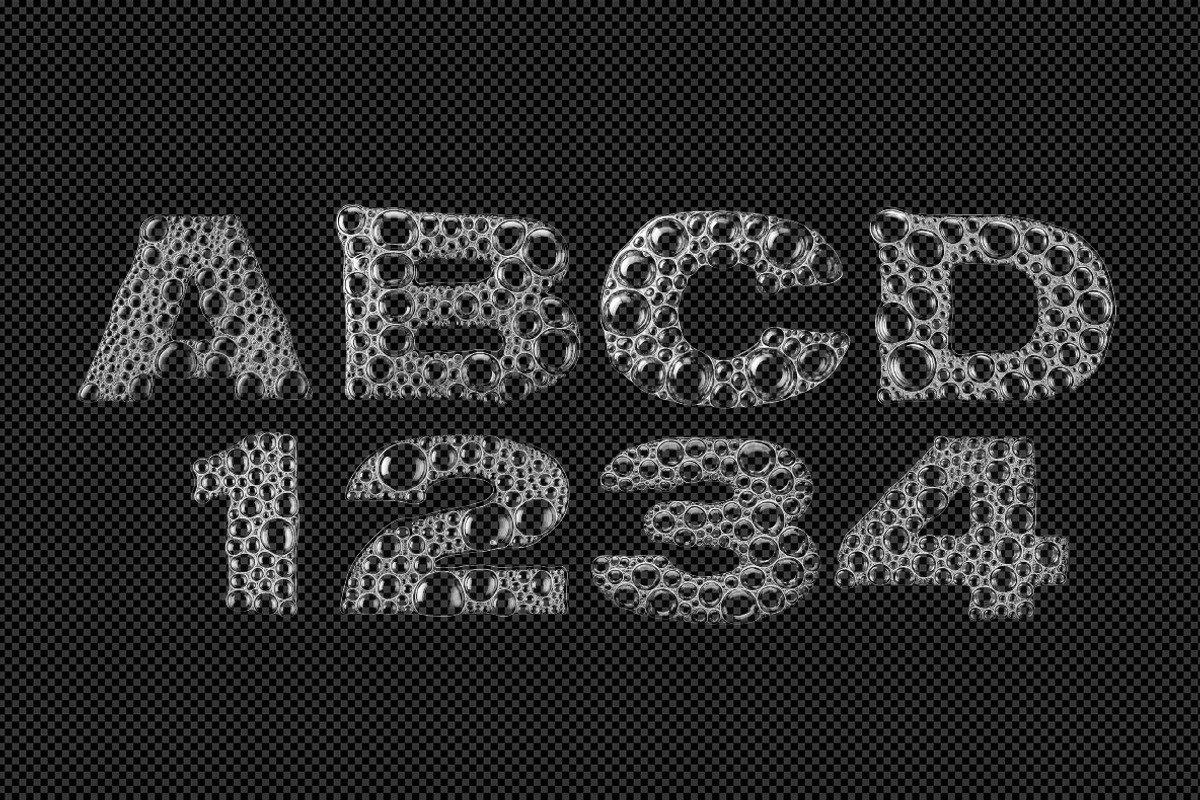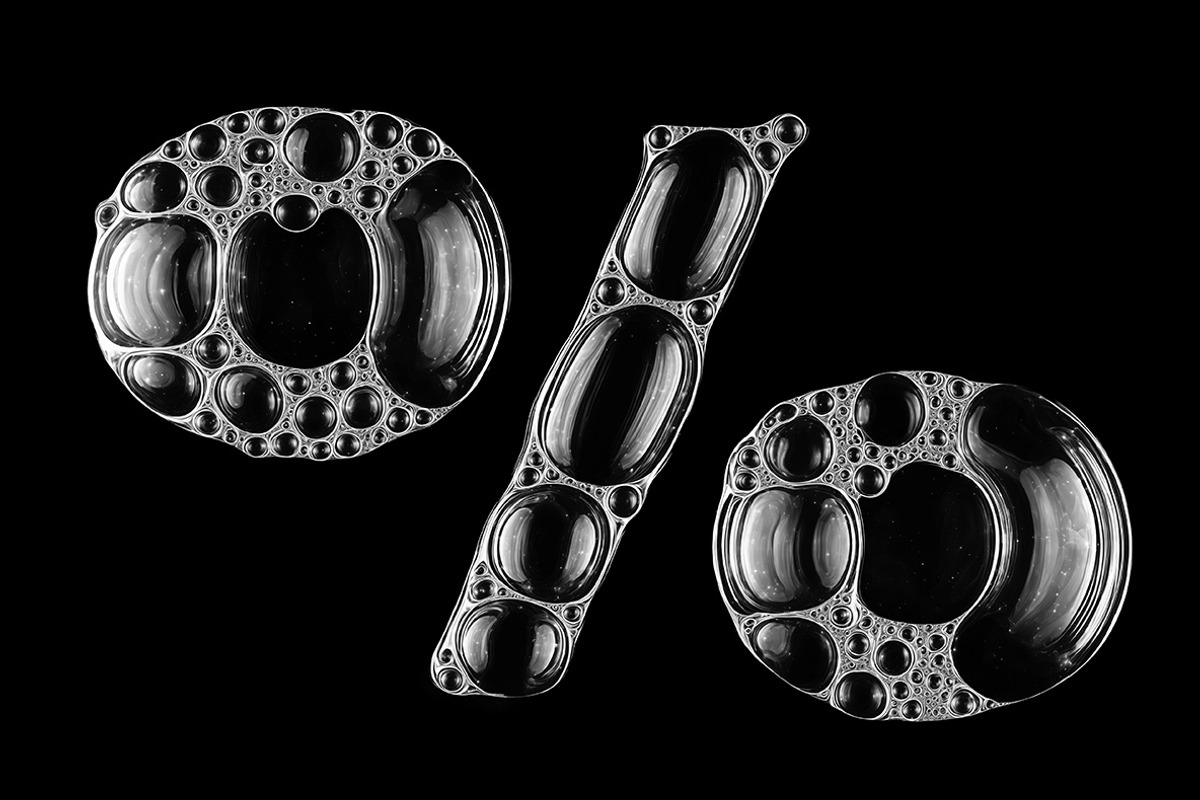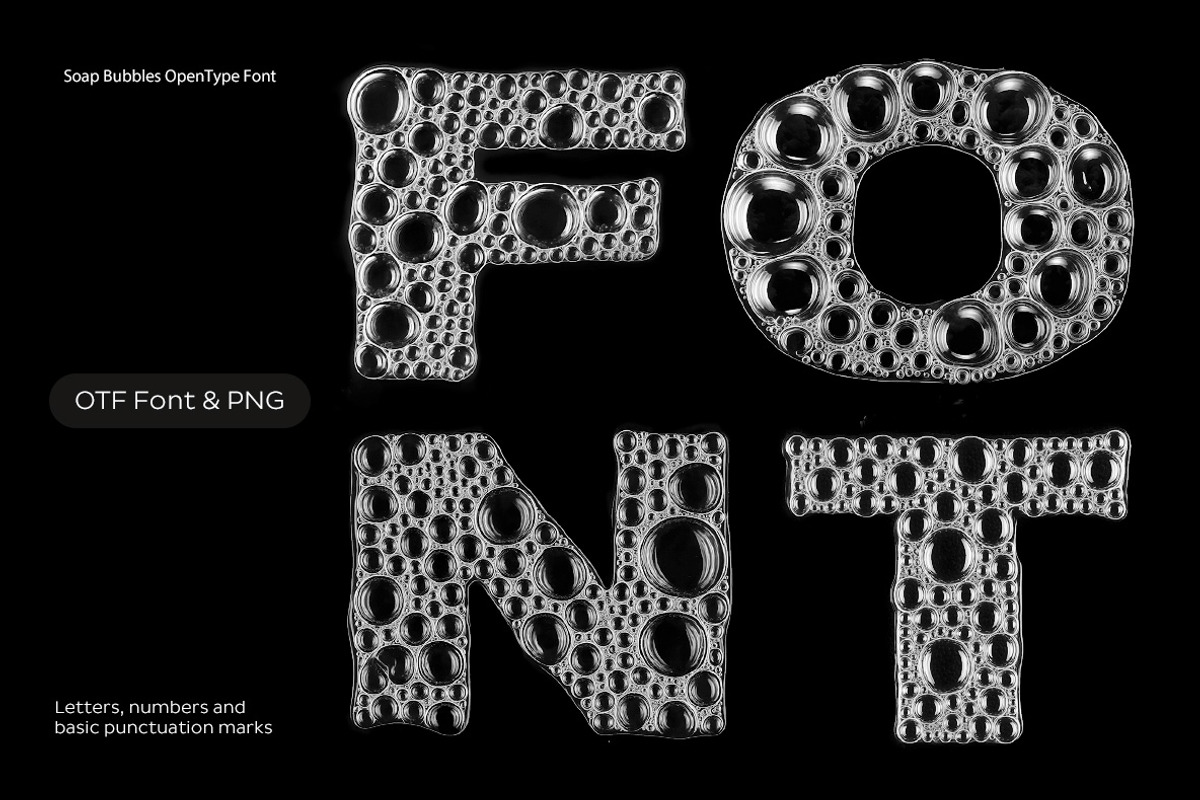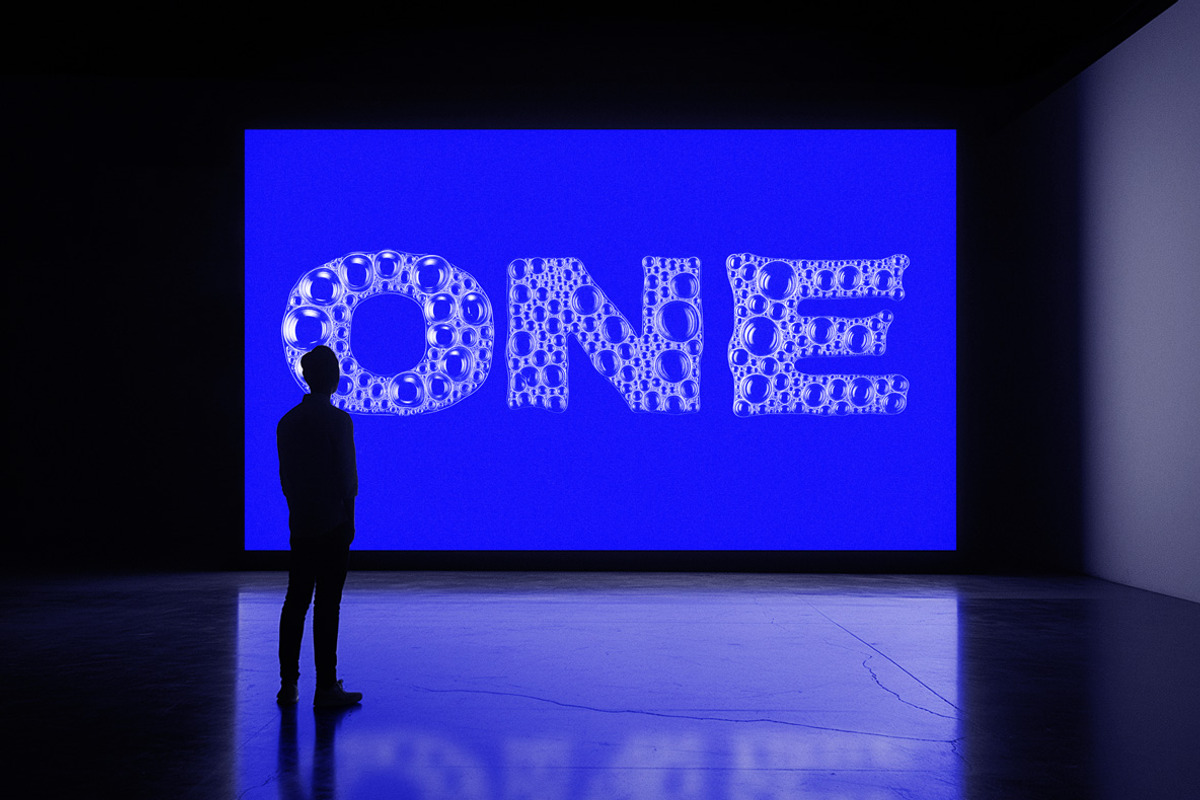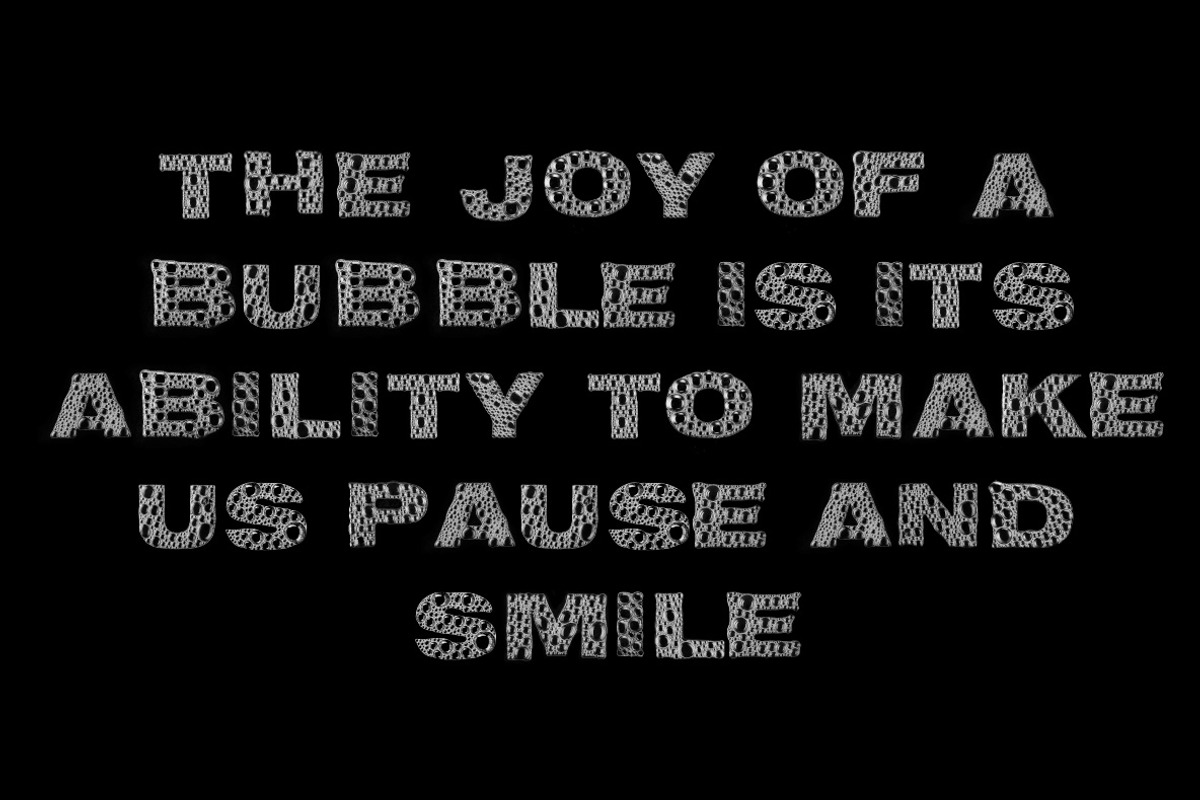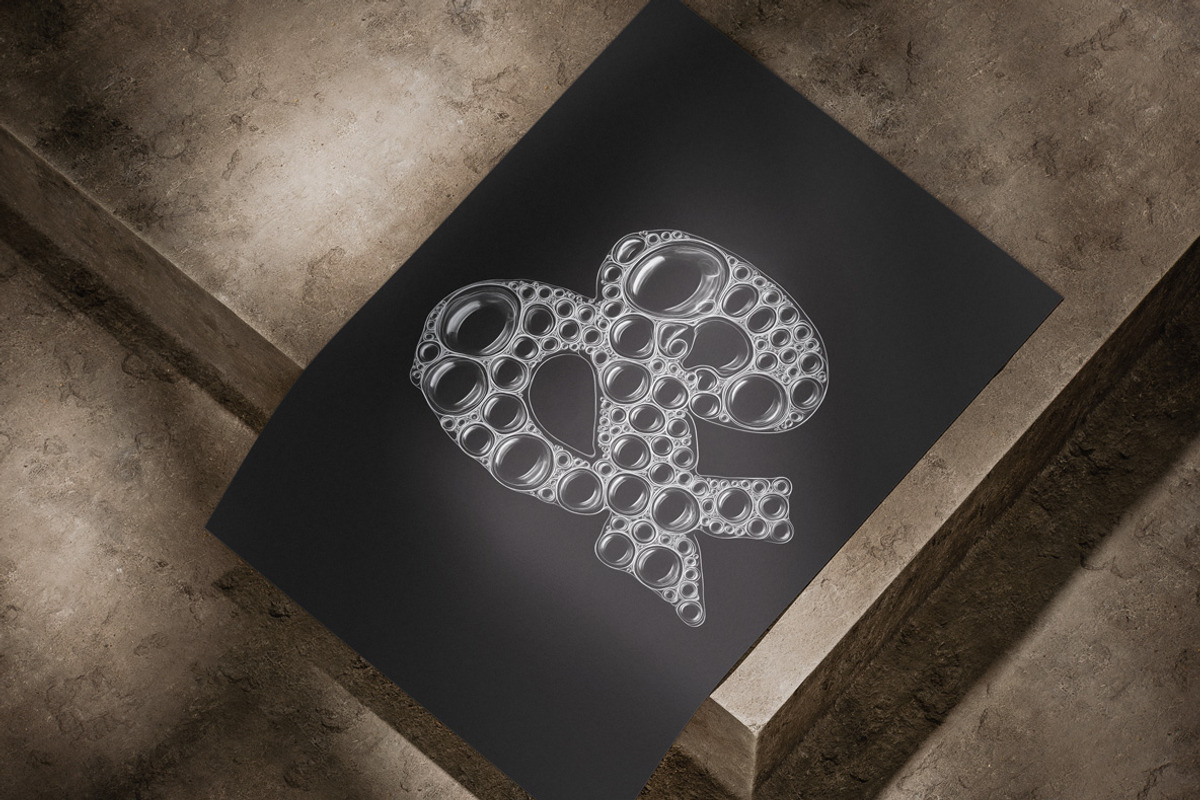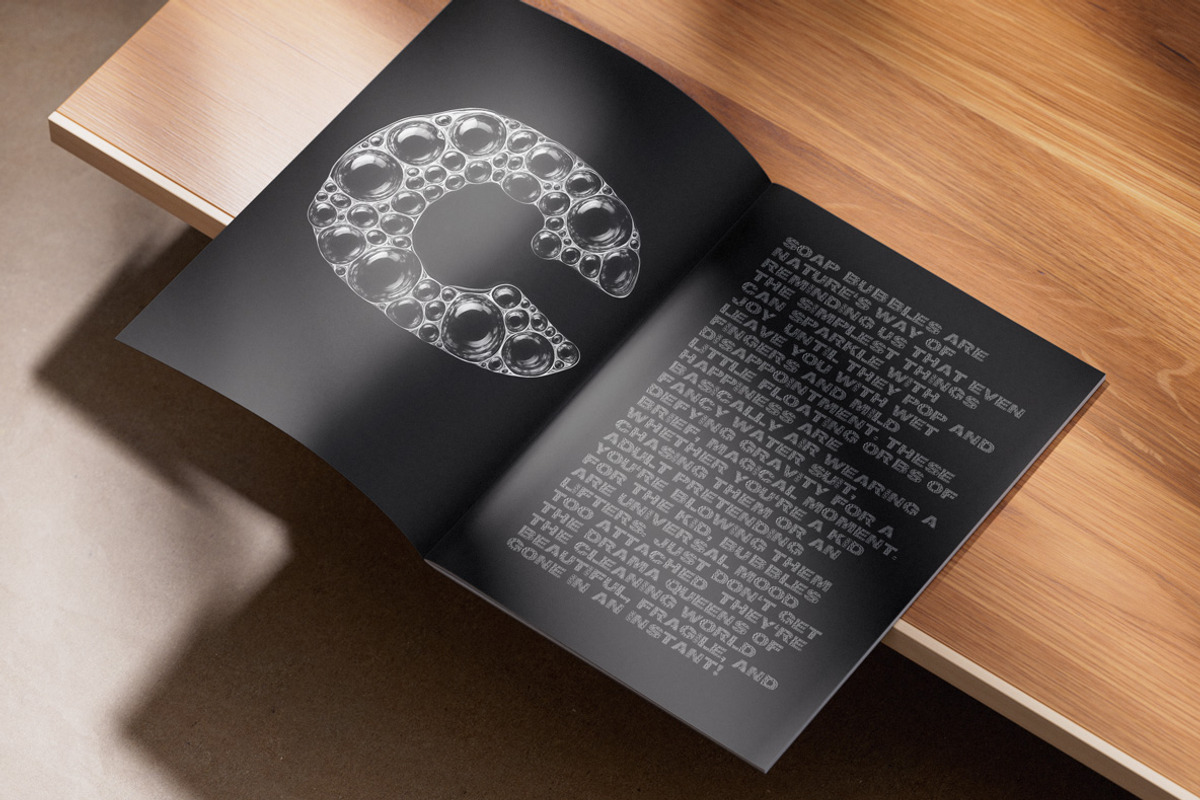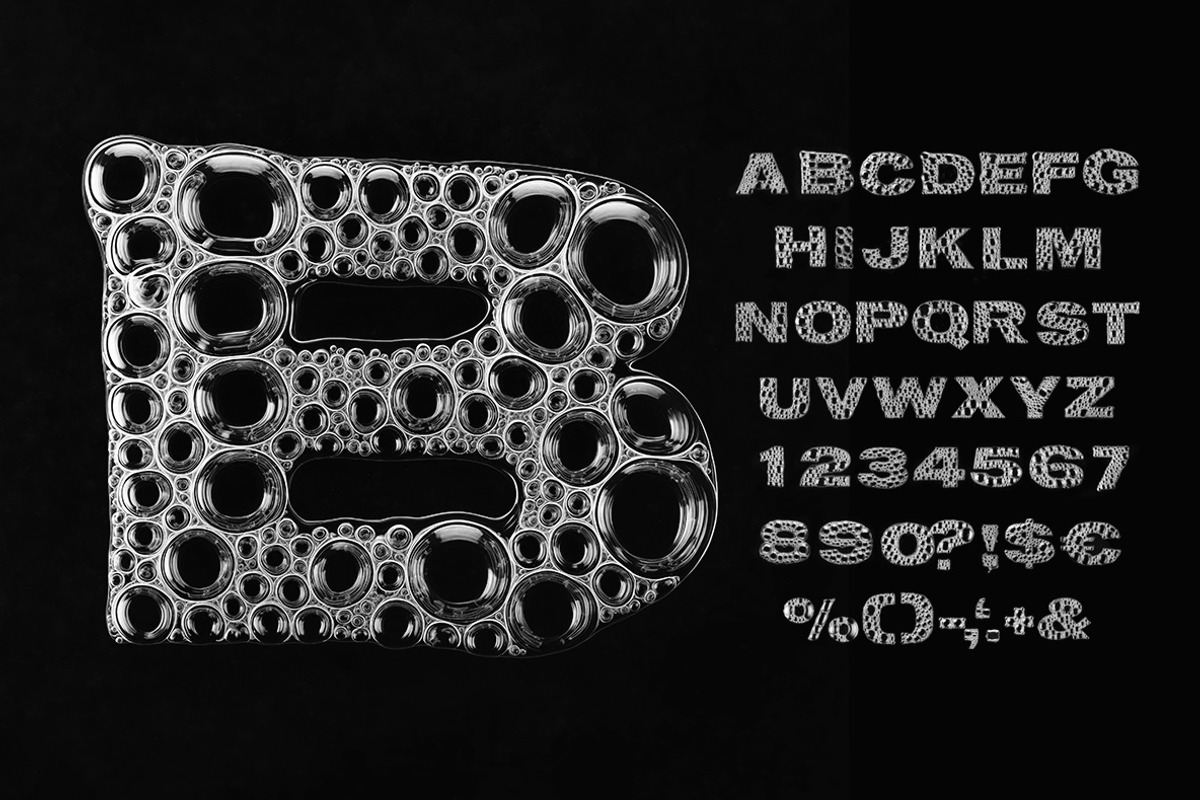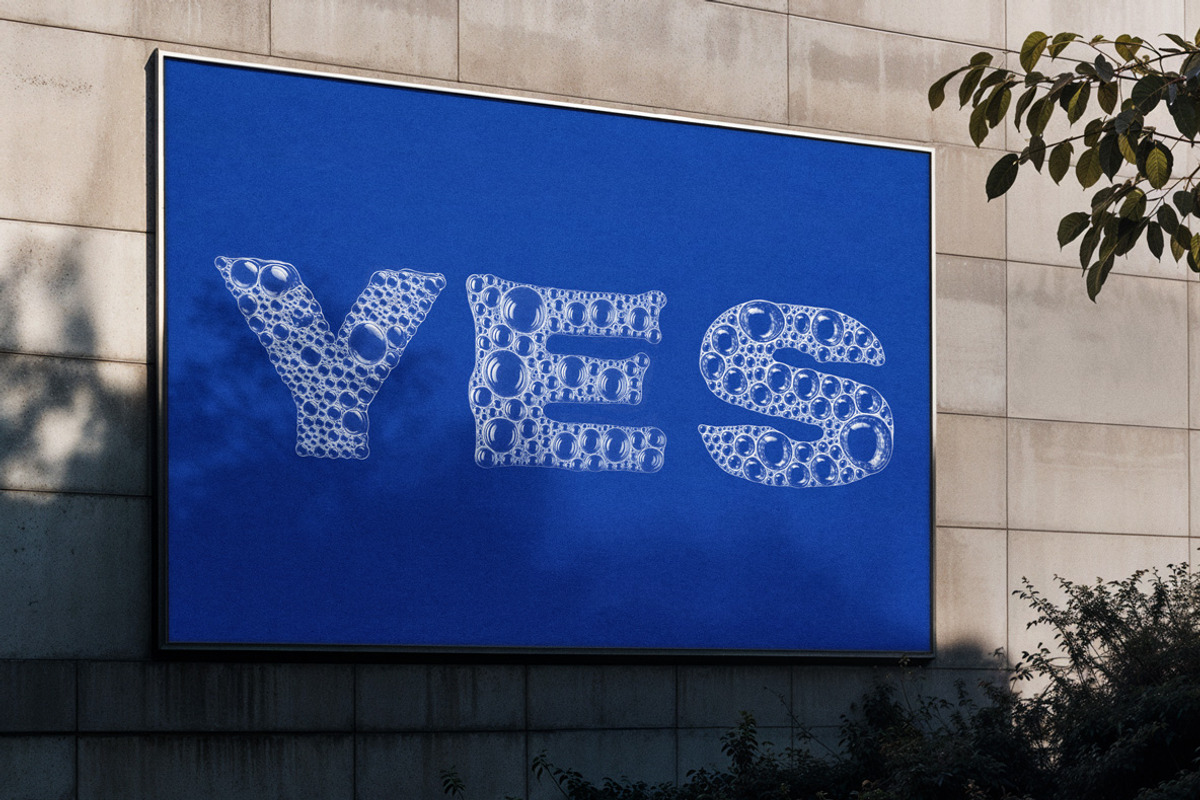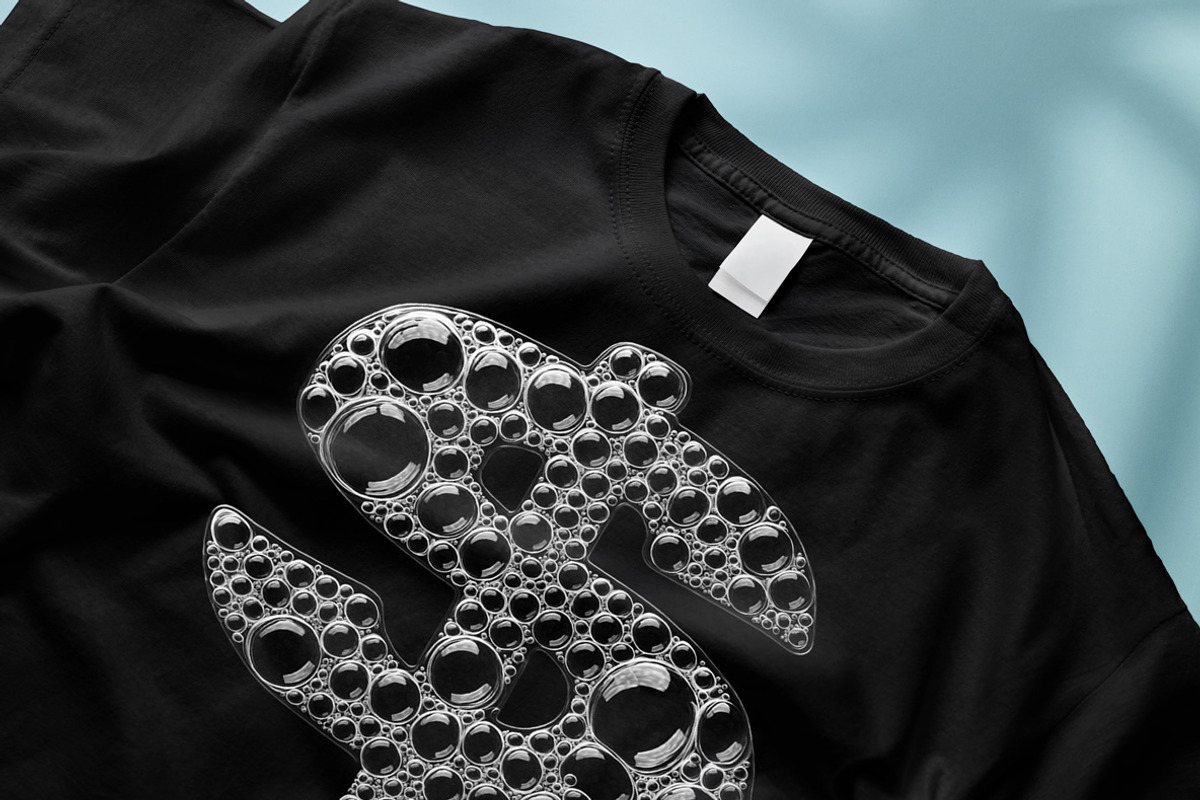
Soap Bubbles Font
More and more captivating, the Soap Bubbles Font is a playful and creative typeface where each letter is crafted entirely from delicate, shimmering soap bubbles. Perfect for adding a light, airy touch to your designs, this font captures the essence of bubble art with its soft, translucent forms and bubbly textures. Ideal for playful projects, children’s designs, party invitations, or anything needing a whimsical flair, it’s a font that effortlessly combines charm and creativity. From bubbly typography to soap-inspired lettering, this font elevates text into a floating, effervescent art form. Whether for digital or print, the Soap Bubbles Font is a delightful choice to make your words pop—literally!
A high definition OpenType Font. Contains uppercase characters, numerals and basic punctuation. (Draw height roughly 800 pixels). All letters and glyphs that comprises this font you can see on the preview.
- Letters : A B C D E F G H I J K L M N O P Q R S T U V W X Y Z
- Numbers : 0 1 2 3 4 5 6 7 8 9
- Others : ! ? - . ' $ € % & # @